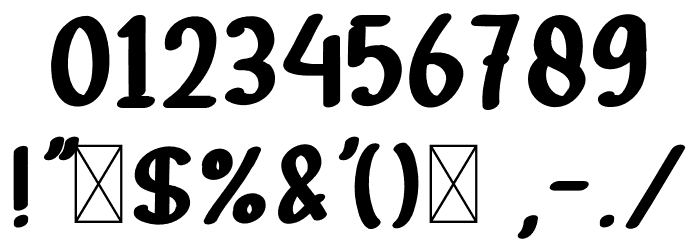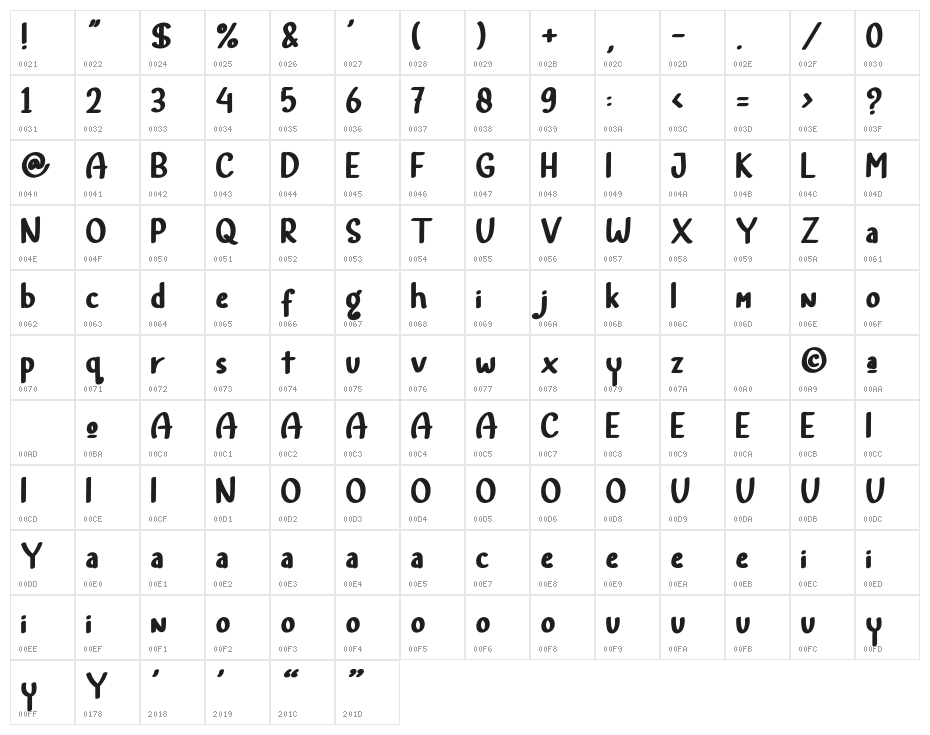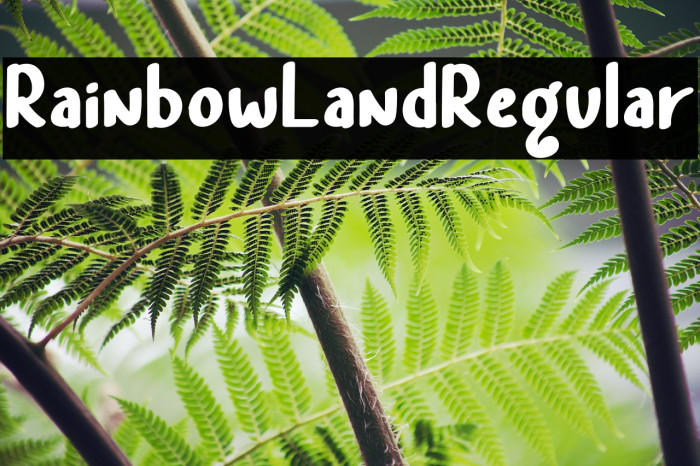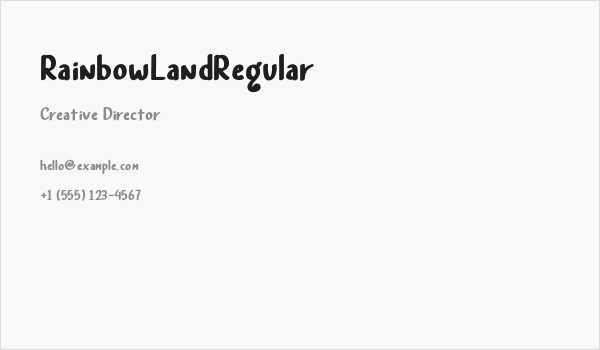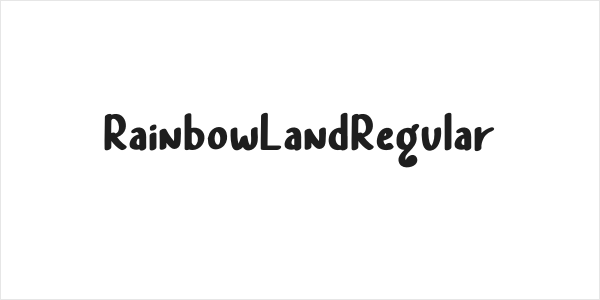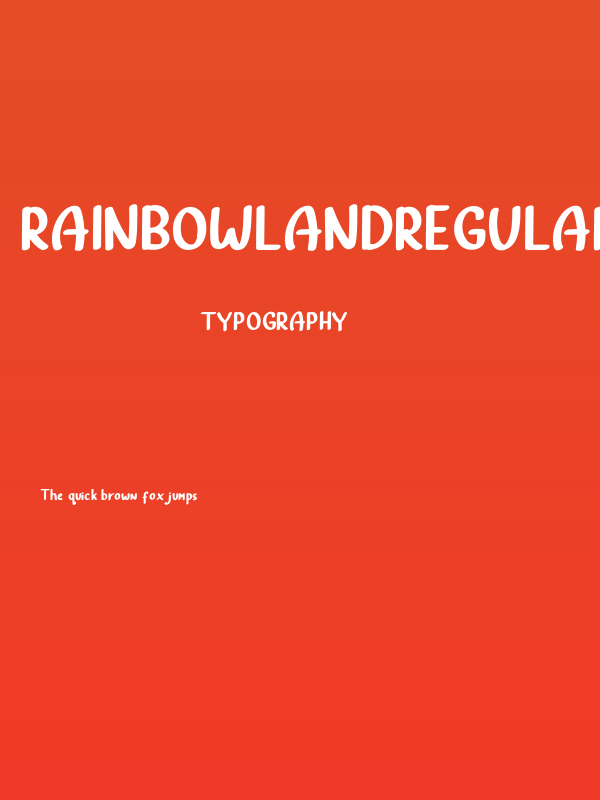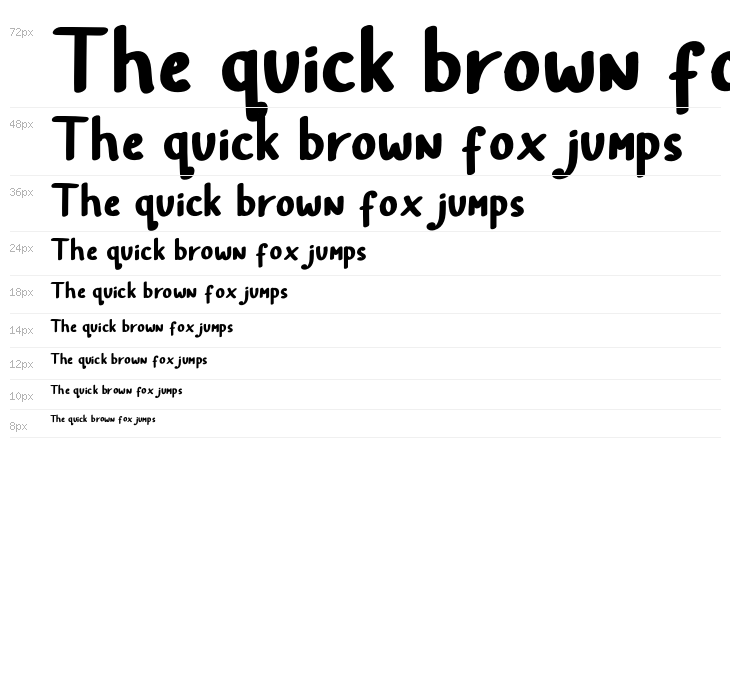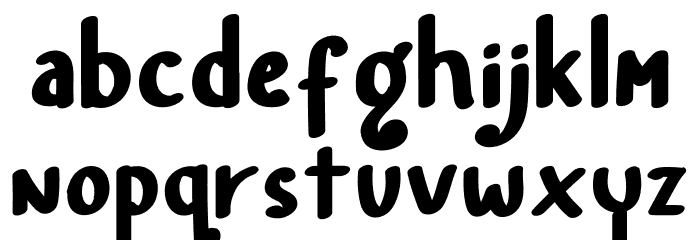
RainbowLandRegular Font
RainbowLandRegular Description
This playful and bold font features rounded edges and a slightly irregular baseline, giving it a whimsical and friendly appearance. The uppercase letters are tall and slightly condensed, while the lowercase letters maintain a consistent height with a touch of quirkiness, particularly in characters like 'g' and 'y'. The numerals are bold and easy to read, matching the overall style of the alphabet. Special characters are included, maintaining the same bold and playful aesthetic. This font is ideal for projects that require a fun and approachable look.
| Proposed Projects | Ideal for children's books, playful branding, greeting cards, and posters. |